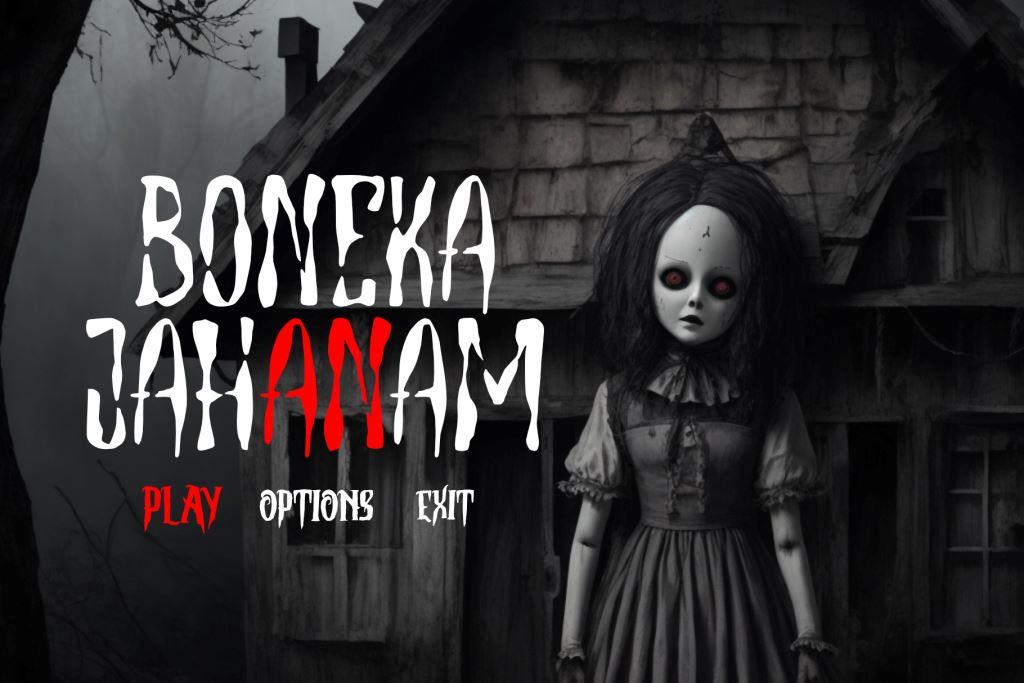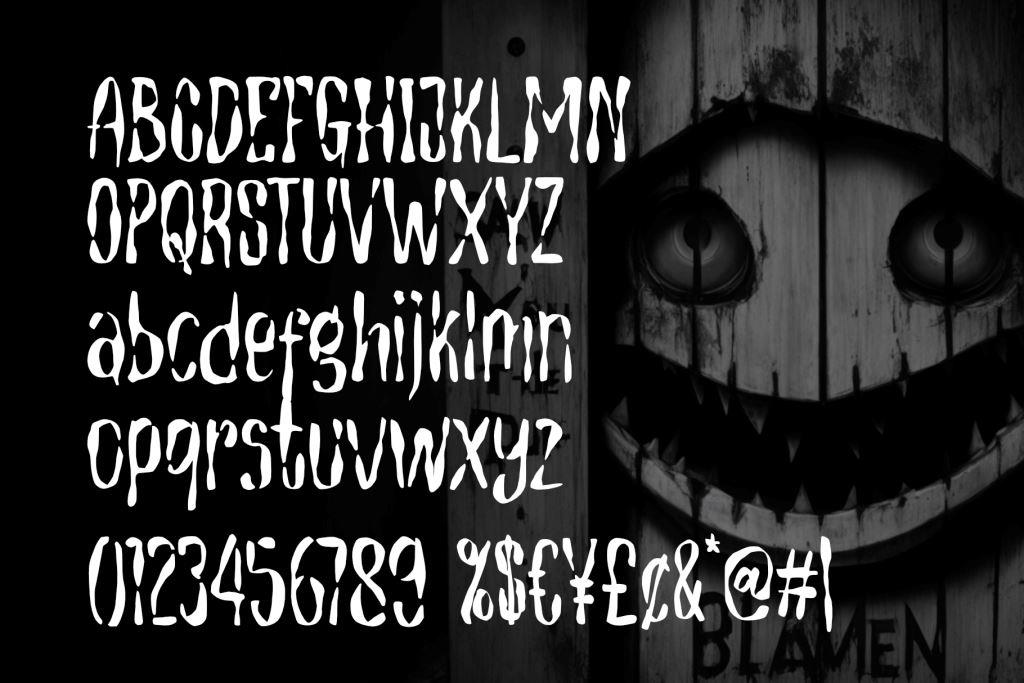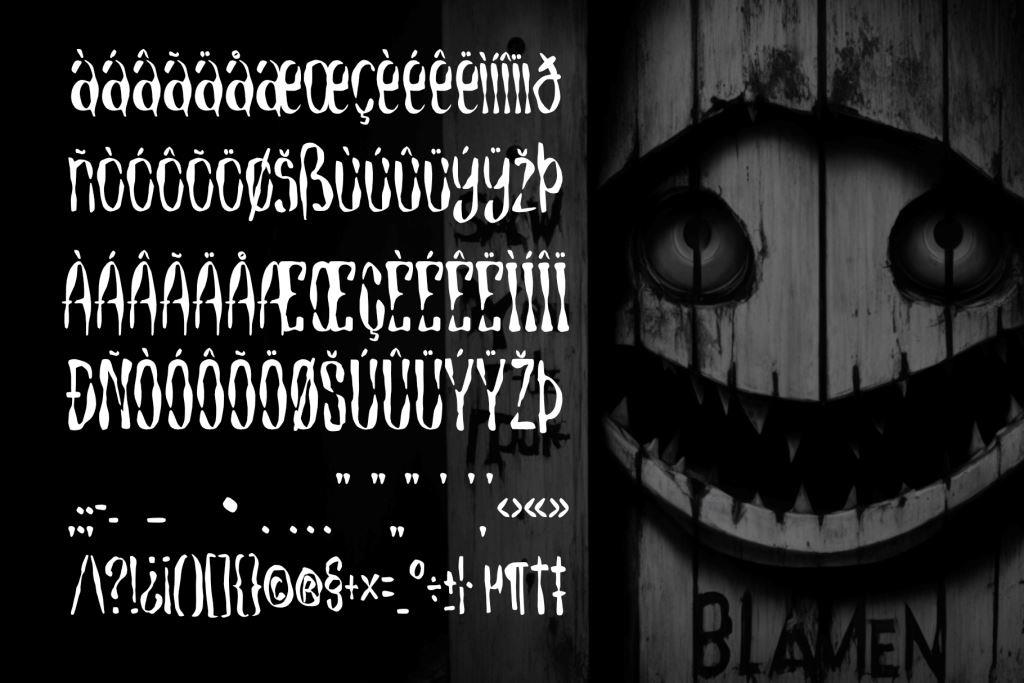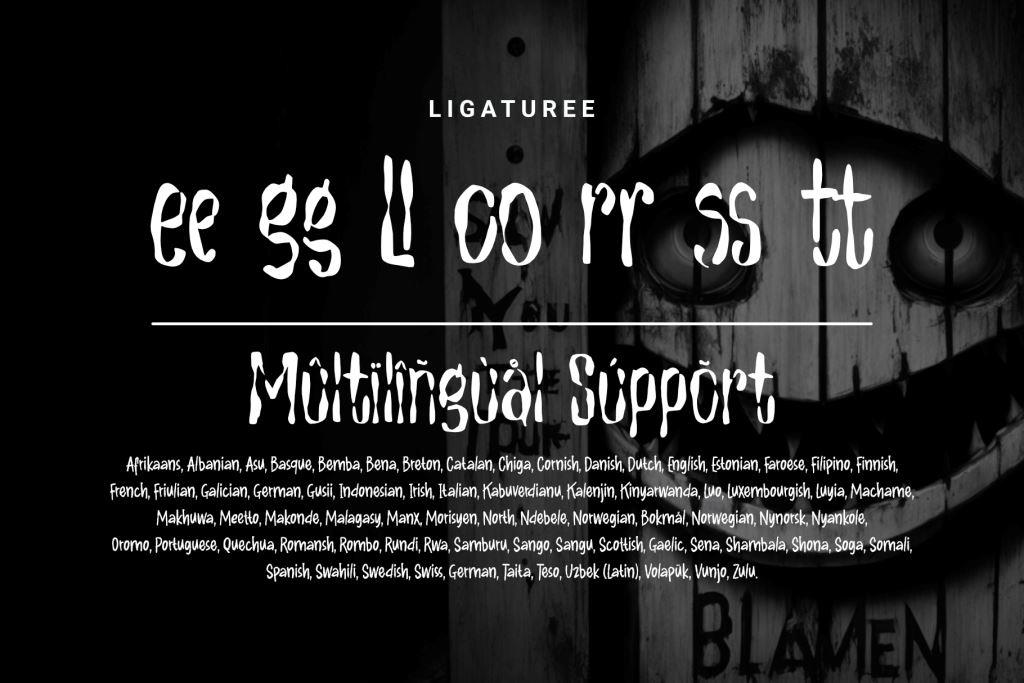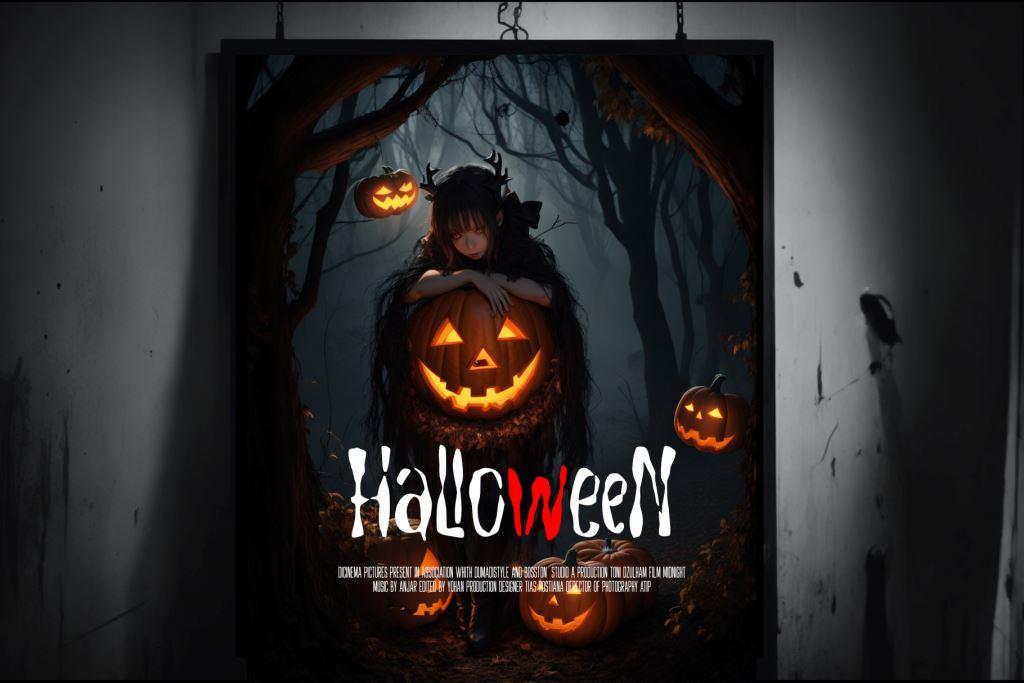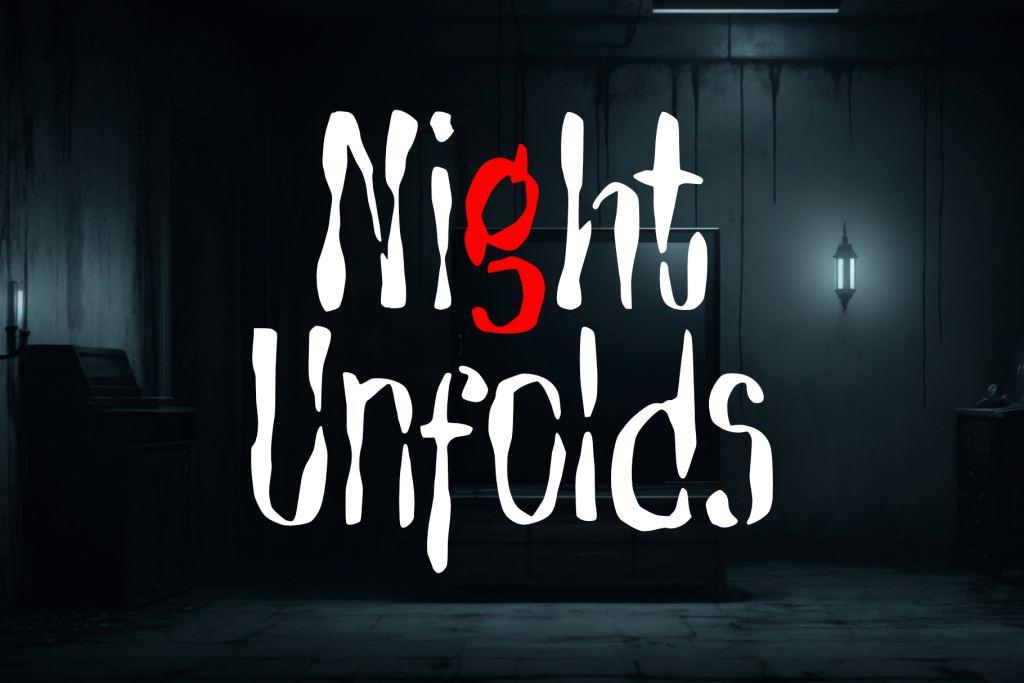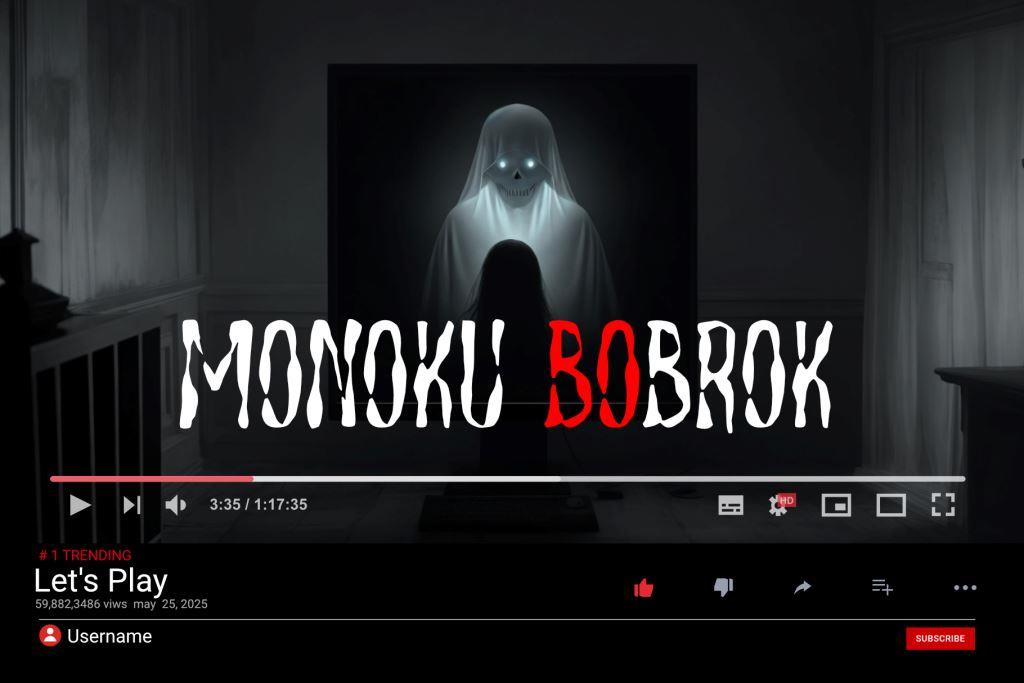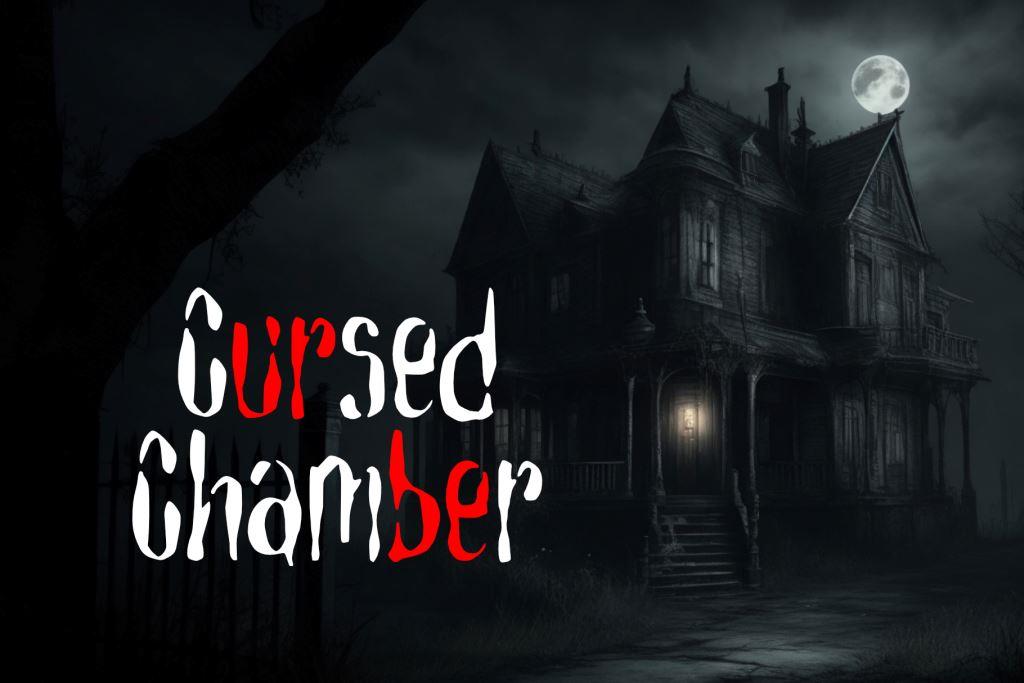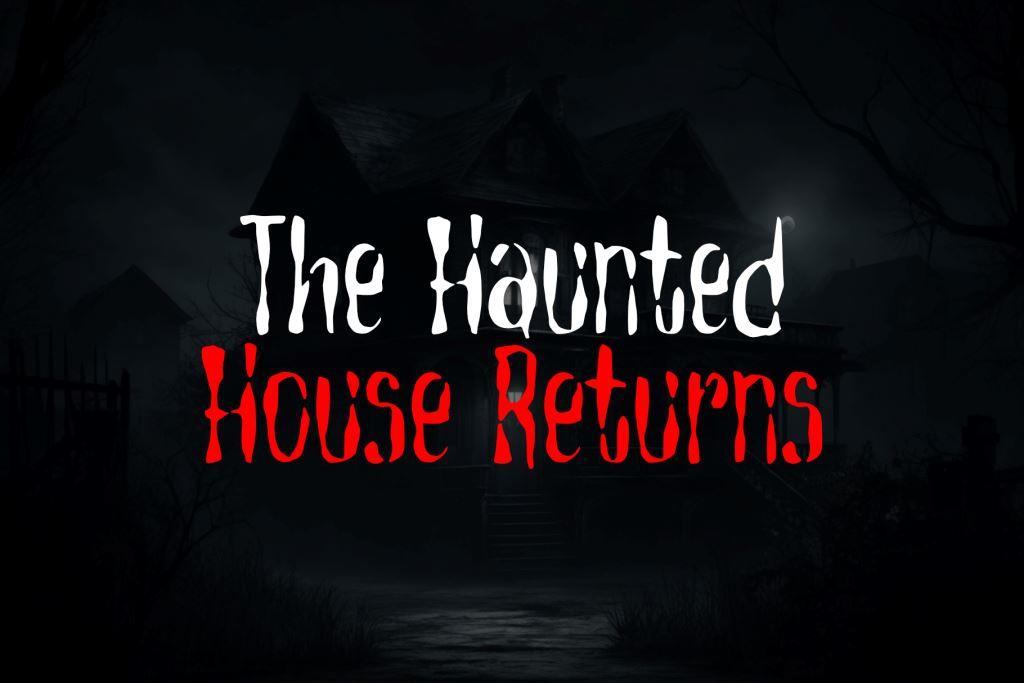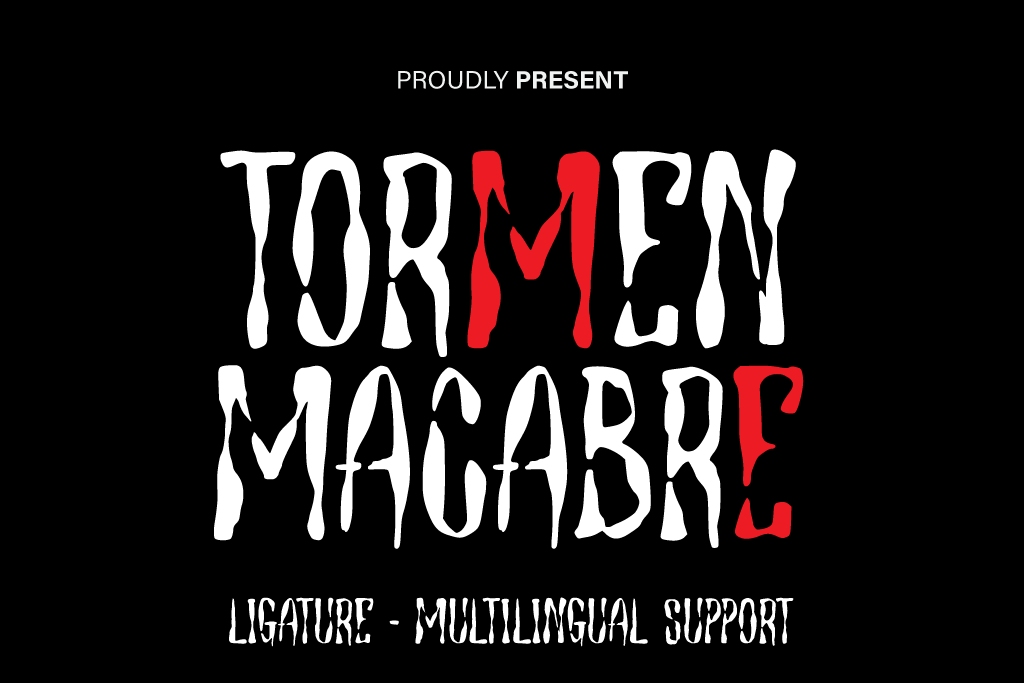
Torment Macabre
“Torment Macabre” immerses your project in the haunting imagery of blood-tinged strokes, resembling a nightmarish painting. With a complex design shrouded in shadows, each letter becomes a brushstroke of macabre storytelling, capturing the visceral essence of horror.
This font injects tangible discomfort, surpassing design norms, evoking a mysterious quality akin to haunting blood-drenched ink. “Torment Macabre” is more than a font; it’s a visual representation of a horror narrative, making it ideal for projects seeking a deep and haunting visual experience.